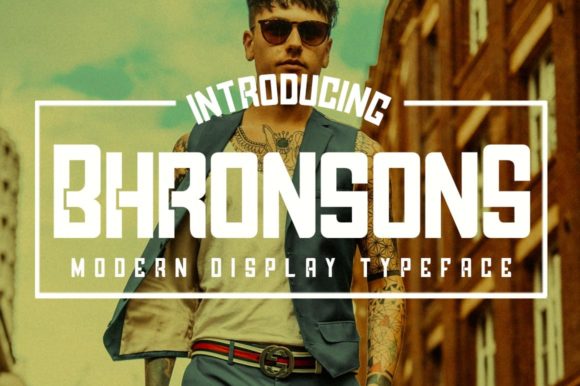
Introducing **Bhronsons Font**, the new addition to our digital toolbox that is set to revolutionize your creative endeavors. With its robust and modern display style, Bhronsons stands out as the font of choice for those seeking to elevate their designs.
Bhronsons is a powerful force in the world of typography, boasting a captivating interplay of imposing letterforms and uniquely shaped characters. This dynamic duo creates a captivating visual impact that is bound to leave a lasting impression on your audience.
But Bhronsons is not just a pretty face. It's a versatile workhorse, ready to tackle a myriad of design challenges. From eye-catching headlines to captivating posters, and from sleek logos to stunning invitations, Bhronsons seamlessly adapts to your creative vision.
So, whether you're crafting a modern CV that demands attention or designing a brand identity that exudes confidence, Bhronsons Font is your perfect partner in crime. Let its bold strokes and captivating curves become the cornerstone of your creative masterpiece.
Bhronsons Font is not just a collection of letters. It's a potent tool that unlocks your boundless creativity. Its versatility and impact make it the perfect choice for anyone who wants to make a bold statement.